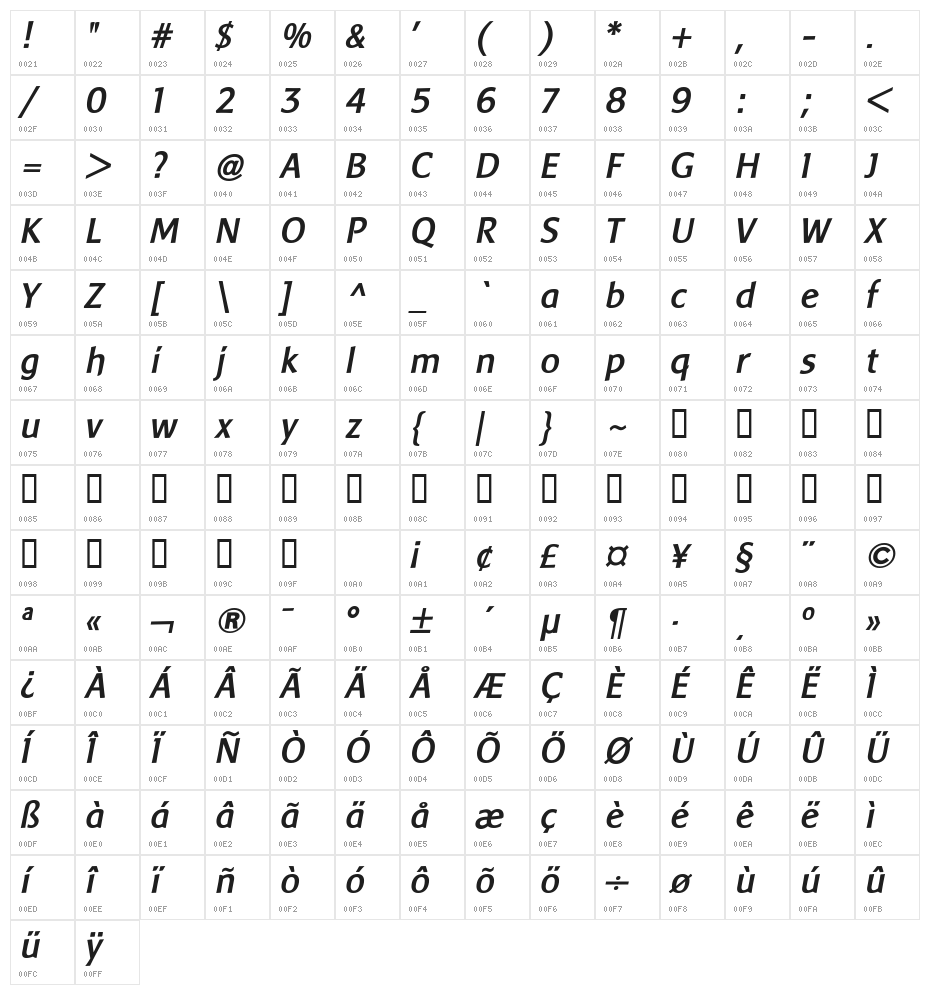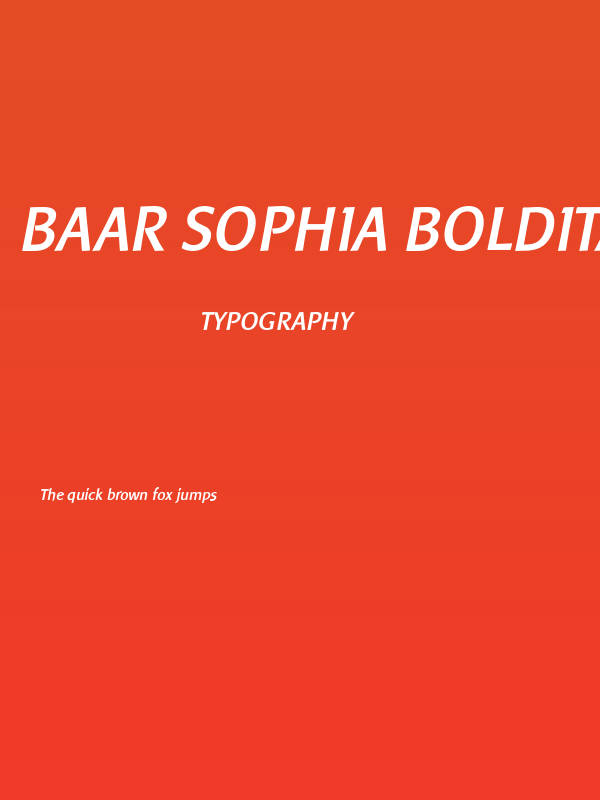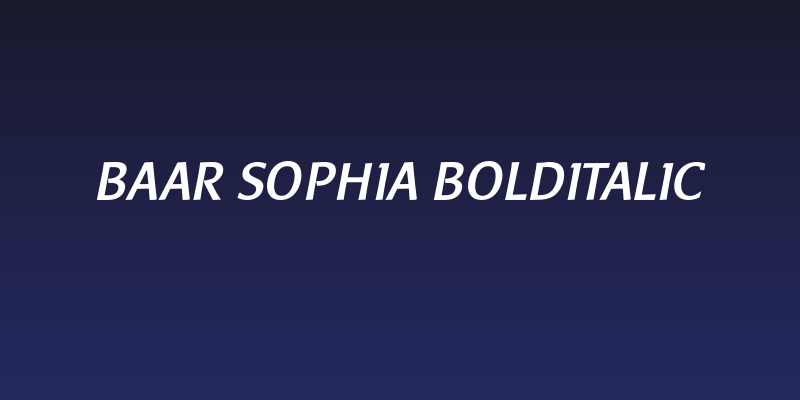
Baar Sophia BoldItalic Font
Baar Sophia BoldItalic Description
This font exhibits a modern and sleek design with a bold and italicized style. The characters are slightly slanted, giving a dynamic and forward-moving appearance. The strokes are consistent and smooth, providing a clean and professional look. The uppercase letters are well-proportioned, while the lowercase letters maintain a harmonious balance. The numerals are clear and distinct, making them easily readable. Special characters are included, adding versatility to the font's usage. Overall, this font combines elegance with readability, making it suitable for various design applications.
| Proposed Projects | Ideal for branding, advertising, headlines, and digital media projects that require a modern and professional touch. |